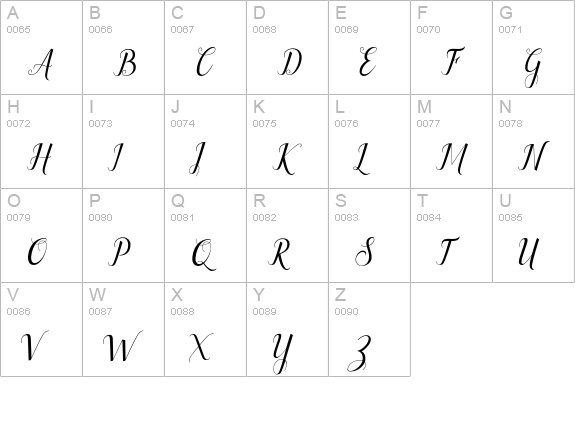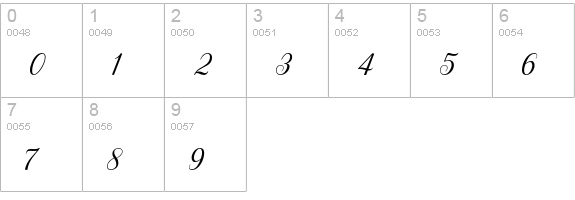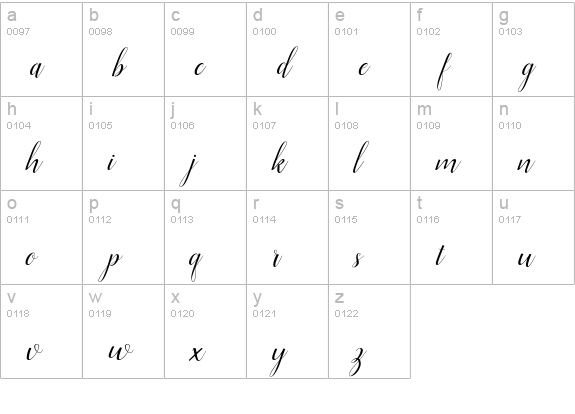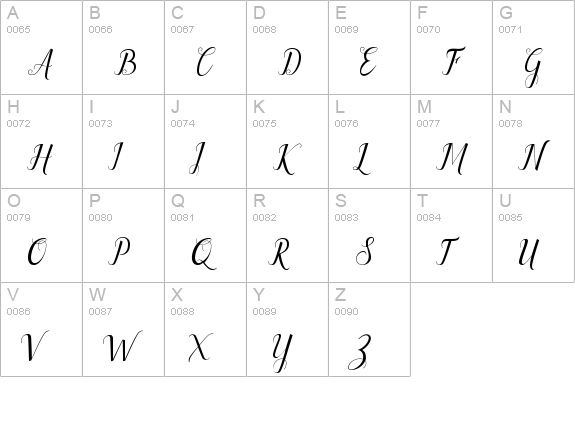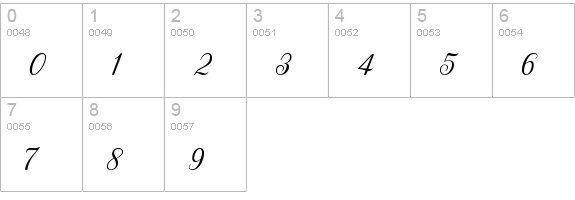
Ellizabeth Font Details
Introducing Ellizabeth font, a beautifully crafted typeface that exudes elegance and sophistication. With its delicate serifs and graceful curves, Ellizabeth is perfect for adding a touch of refinement to any project. This versatile font is ideal for a wide range of design applications, from invitations and wedding stationery to branding and packaging. What's even better is that Ellizabeth font is available for free download at FontsMarket.com. This means you can easily access this stunning typeface and use it in your designs without any cost. Don't miss out on the opportunity to enhance your projects with the timeless beauty of Ellizabeth font. Download it today and elevate your designs to the next level.